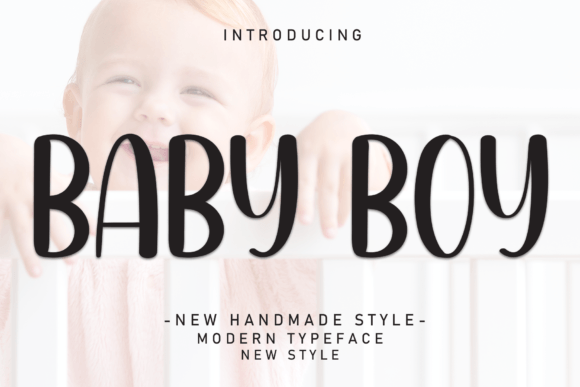
Journey into the world of BabyBoy Font, a captivating script font family that exudes sweetness and friendliness, leaving an unforgettable impression on your designs. Its captivating charm and playful nature make it the perfect choice for creating captivating wedding invitations, cards, posters, logos, branding, and any project that craves a touch of whimsy and delight.
Crafted with meticulous care by the renowned font designer Strongkeng Old, BabyBoy Font is a handwritten masterpiece that embodies the essence of joy and celebration. Its graceful strokes and elegant curves dance across the page, leaving a trail of visual delight that captures the hearts of all who behold it.
With its versatility and boundless creativity, BabyBoy Font transcends the ordinary, allowing you to express your unique style with flair and imagination. Whether you're designing a whimsical poster, a personalized greeting card, or an eye-catching logo, BabyBoy Font effortlessly adapts to your vision, adding a touch of magic to every project.
Embrace the delightful spirit of BabyBoy Font and let your creativity soar. Its user-friendly design and effortless flow make it perfect for both seasoned designers and those just starting their creative journey. Unleash your imagination and transform your designs into enchanting works of art that captivate and inspire.
Indulge in the charm of BabyBoy Font today and experience the joy of creating designs that radiate warmth, happiness, and boundless creativity. Let your projects speak volumes with a font that speaks to the heart.